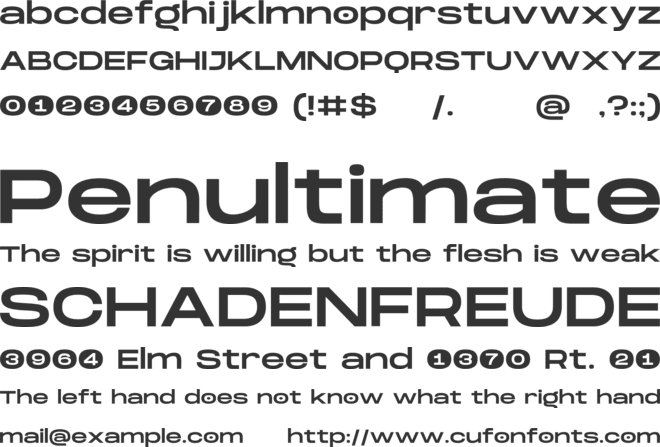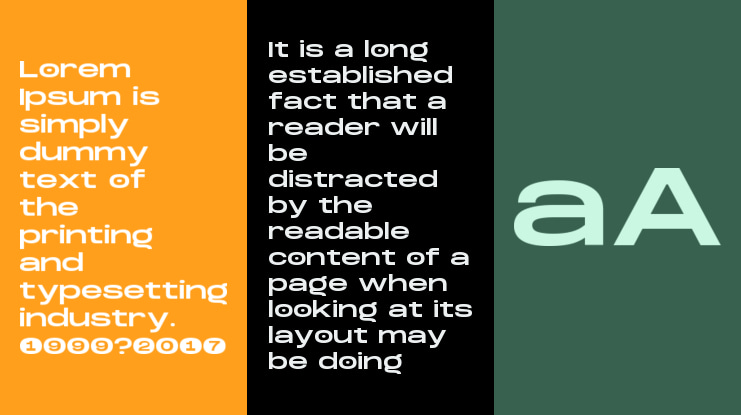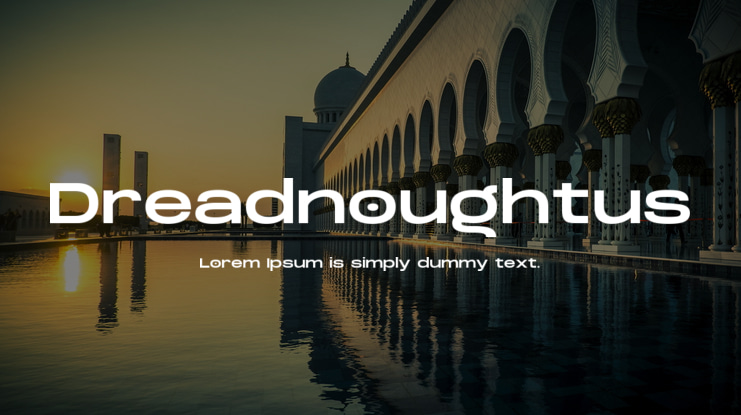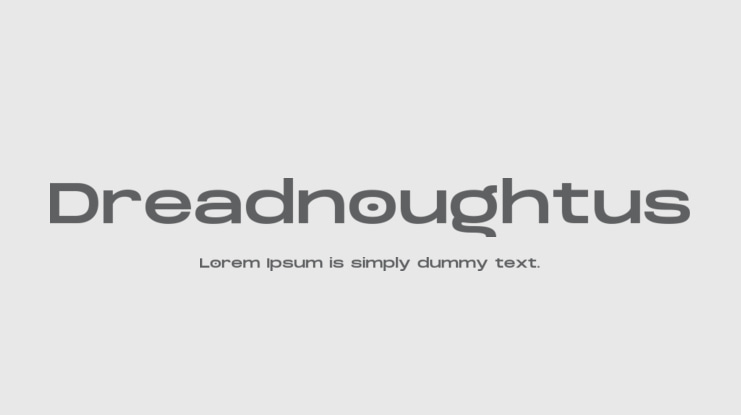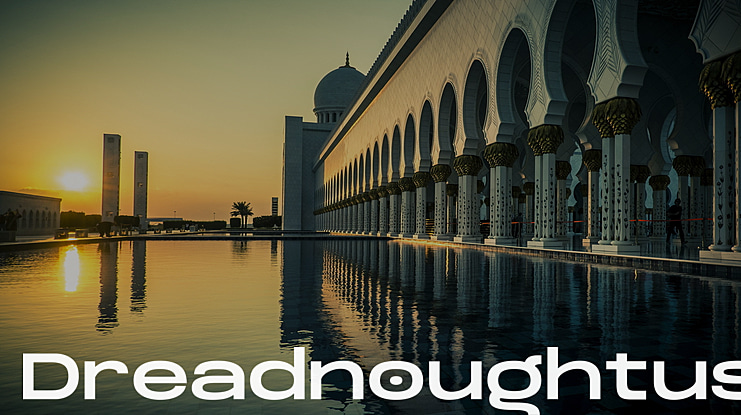
Dreadnoughtus Font
DreadnoughtusExtended is an super big bold display typeface designed for use in large sizes. Available with 7 weights all with italics. Also includes full Open Type features like Ligatures, Symbols, and Alternates. With its wide and open proportions, DreadnoughtusExtended makes a grand entrance for your headlines, subheads and even for the body of text. With a (post) modernist attention to readability and detail, the wide sizes allow you to write strong headlines. Try it out.
DreadnoughtusExtended is very well suited for making a bold statement in every design needs.